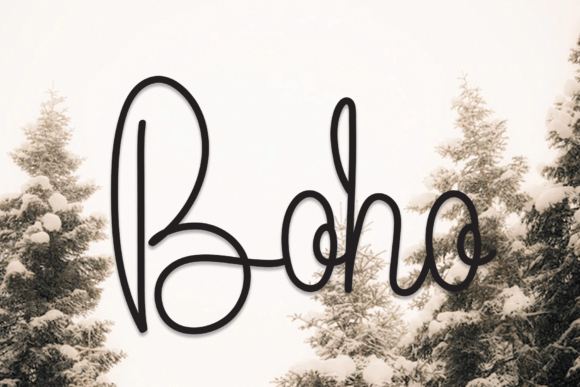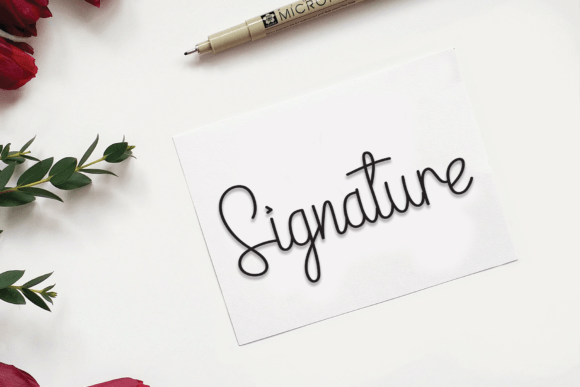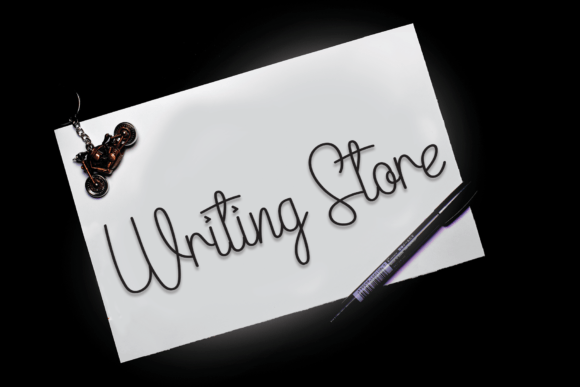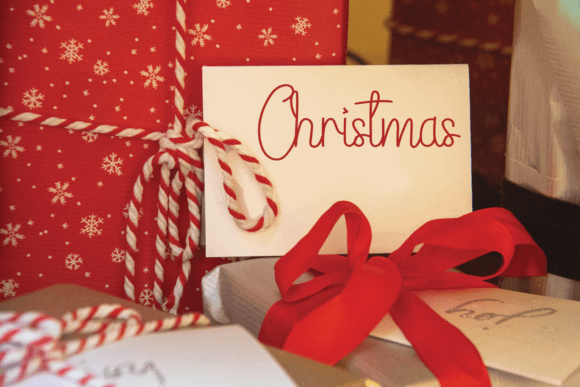
Boho Font
The Boho Font Download is a fun and friendly handwritten typeface that adds charm, warmth, and creativity to your designs. With casual strokes and a natural handwritten flow, this font feels approachable while staying clear and balanced. Because of its versatile look, Boho works for both personal and professional projects.
Boho Handwritten Script with Personality
Boho captures the relaxed spirit of handwriting and combines it with clean readability. Unlike overly complex typefaces, this Boho handwritten font blends playfulness with practicality. As a result, it is perfect for projects where text must be stylish yet easy to understand.
Perfect for Crafts and DIY Projects
Crafters often look for fonts that feel handmade yet polished. For example, the Boho Font works well in scrapbooking, embroidery, wall art, and gift tags. It brings a warm and personal tone to creative projects. Moreover, its smooth flow makes even simple crafts appear thoughtful and unique.
Greeting Cards and Invitations with Boho Font
Cards and invitations should feel special, and Boho helps achieve this effect. The Boho script font works beautifully for birthday cards, wedding invitations, and holiday greetings. In addition, it gives every message an emotional touch, which helps make designs more memorable.
Digital Design and Social Media Content
In the digital world, fonts must stand out while remaining legible. The Boho Font Download is ideal for Instagram posts, Pinterest graphics, blog headers, and YouTube thumbnails. Also, it integrates smoothly with Canva, Photoshop, and Illustrator. Therefore, designers at any level can create professional visuals easily.
A Friendly Typeface for Presentations
Slideshows are more engaging when they use fonts that feel approachable. The Boho typeface allows teachers, students, and professionals to create presentations that look creative without losing clarity. As a result, it makes slides more enjoyable and effective.
Versatility Across Creative Projects
One of the strongest points of Boho is its adaptability. Instead of fitting only one style, it works for branding, packaging, logos, crafts, and social media posts. The Boho handwritten script adapts to both print and digital platforms, giving designers consistency across multiple uses.
Why Designers Choose Boho Typeface
Designers value fonts that combine creativity with usability. Many handwritten fonts lose clarity in smaller sizes, but Boho avoids this problem. The Boho handwritten script remains legible while keeping its playful character. This makes it a reliable and stylish choice for any creative collection.